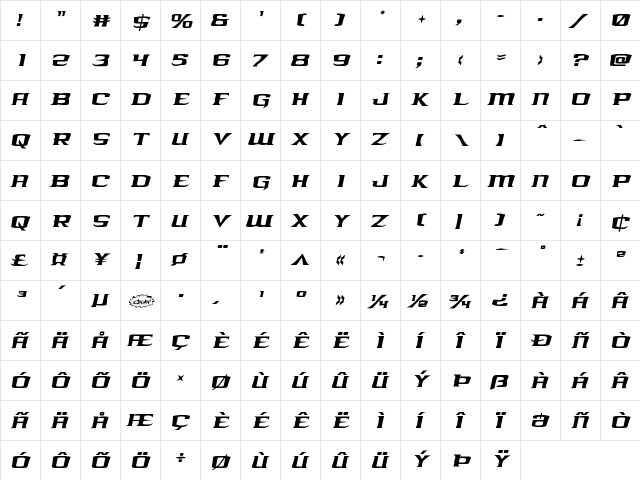
Kreature Kombat Staggered Italic Italic
Design Context for Kreature Kombat Staggered Italic Typeface
Kreature Kombat Staggered Italic is a composed and adaptable typeface that performs quietly and consistently across a wide range of design contexts. Its italic angle brings a sense of urgency and motion to the letterforms.
Pro Tip: Use Kreature Kombat Staggered Italic for emphasis, pull quotes, and subheadings where its slanted energy can add rhythm to the layout.